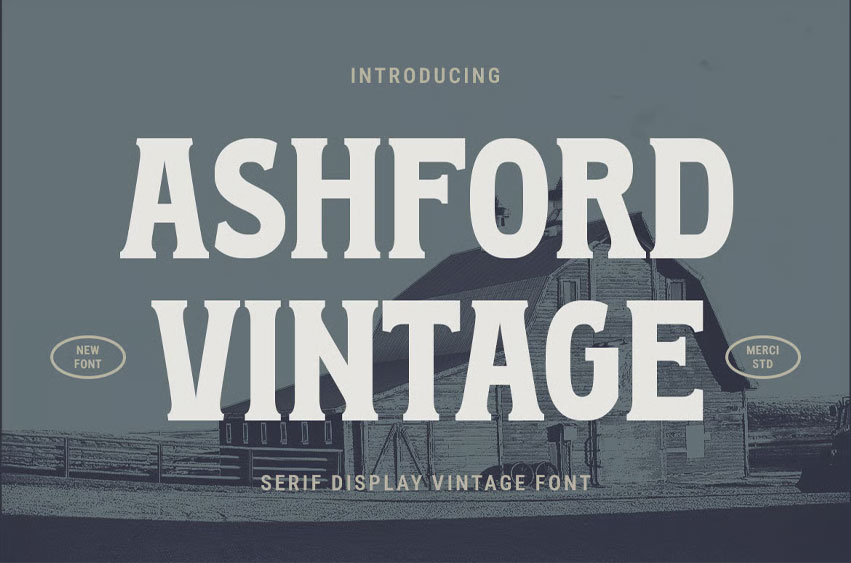
Ashford Vintage Font is a bold serif display font inspired by classic typography styles. Ideal for vintage branding, posters, packaging, and traditional design projects.
- Unique Hand-Drawn Style